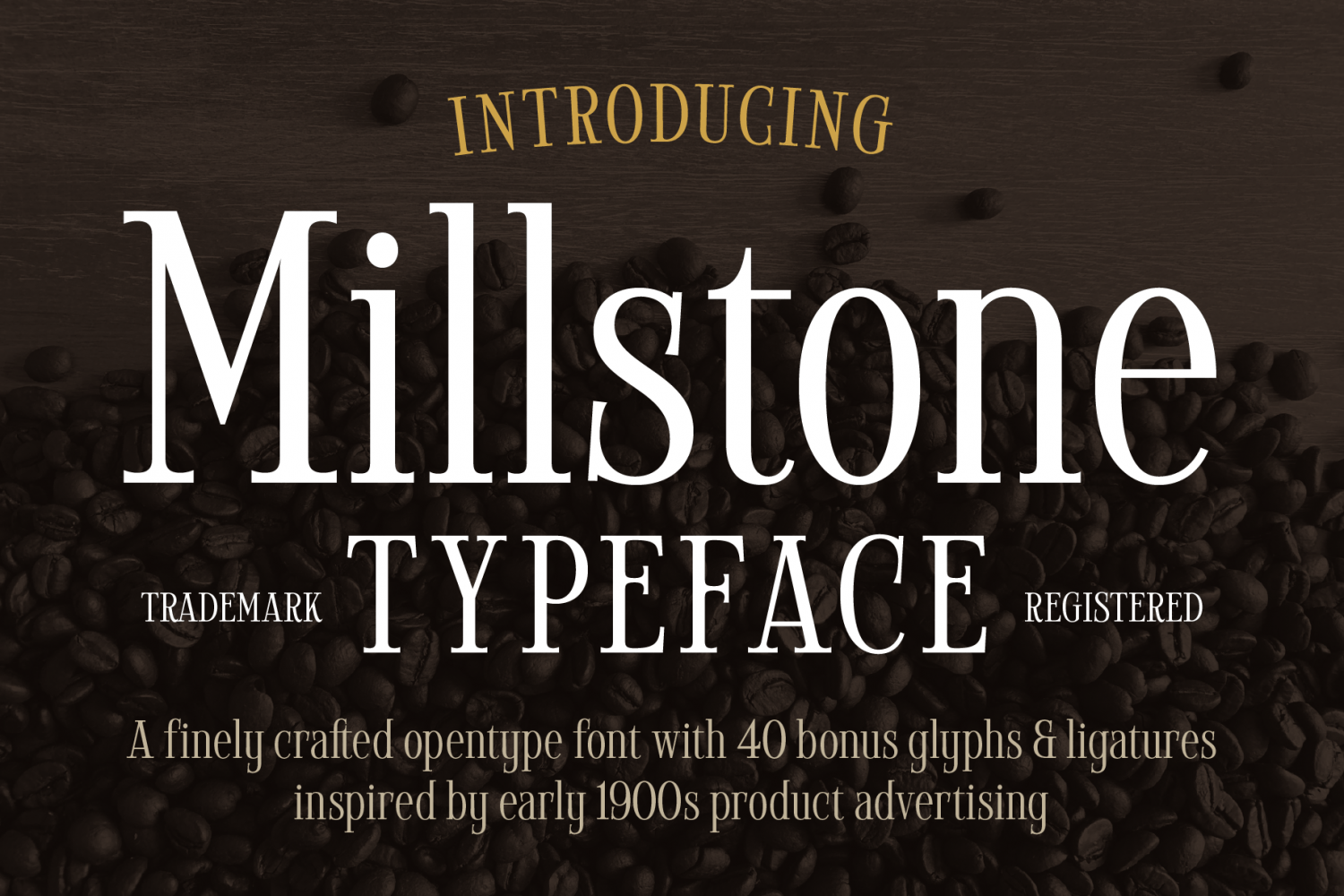
Millstone
Upper and lowercase A-Z Numerals and punctuation Accent characters 31 Stylistic alternates 21 Ligatures Millstone is a vintage, light, condensed font with modern flair. Inspired by hand lettering on an early American farm equipment ad booklet that featured short letters with wide, curled serifs. To give this font an update the characters were condensed and given balanced thick and thin strokes to enhance readability at a wide range of sizes. Use it alone in labels and logo designs, or for longer copy when limited space and style is critical.
The Millstone font family includes 275 glyphs.
Millstone Regular by Searfoss Design